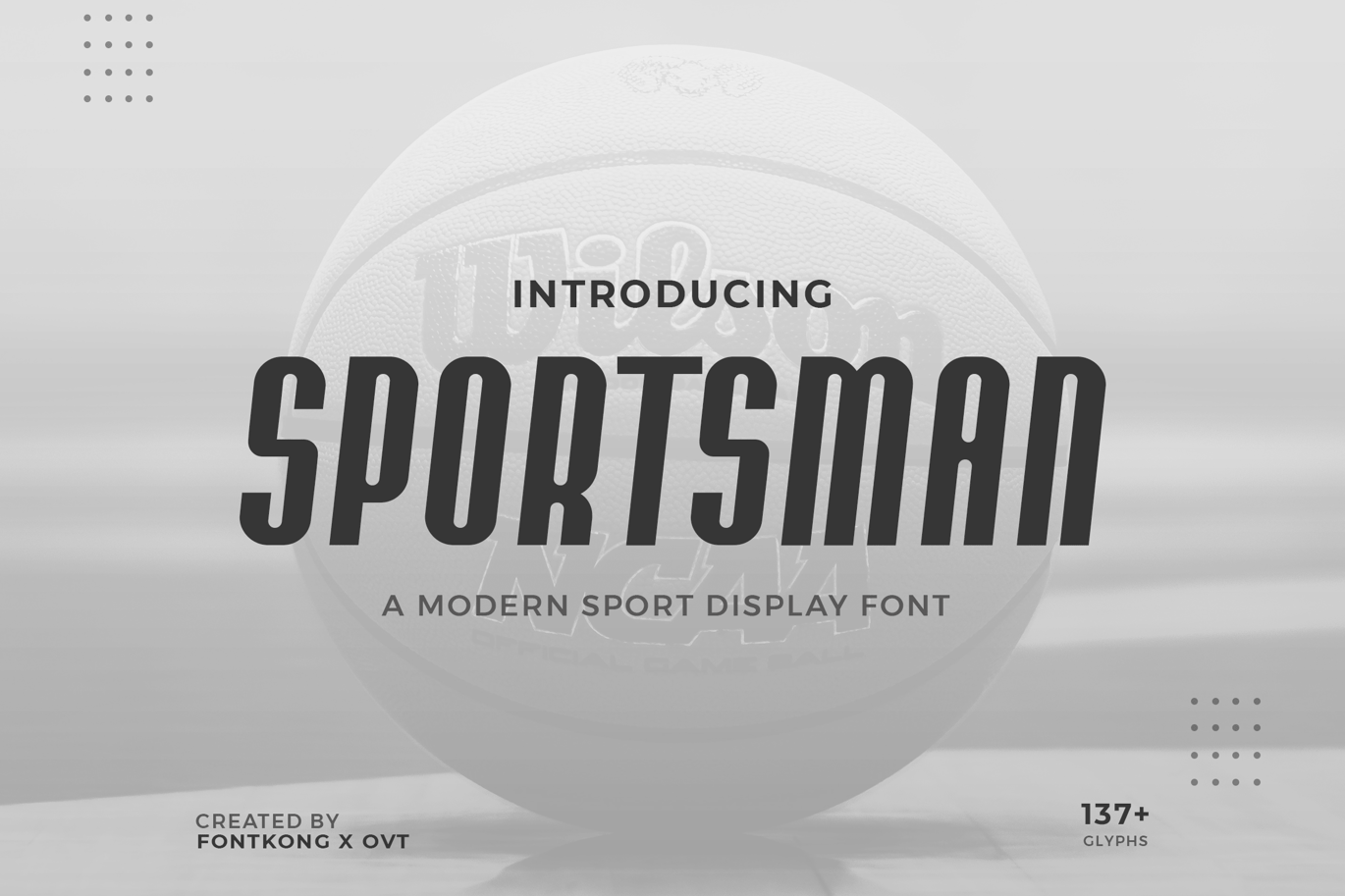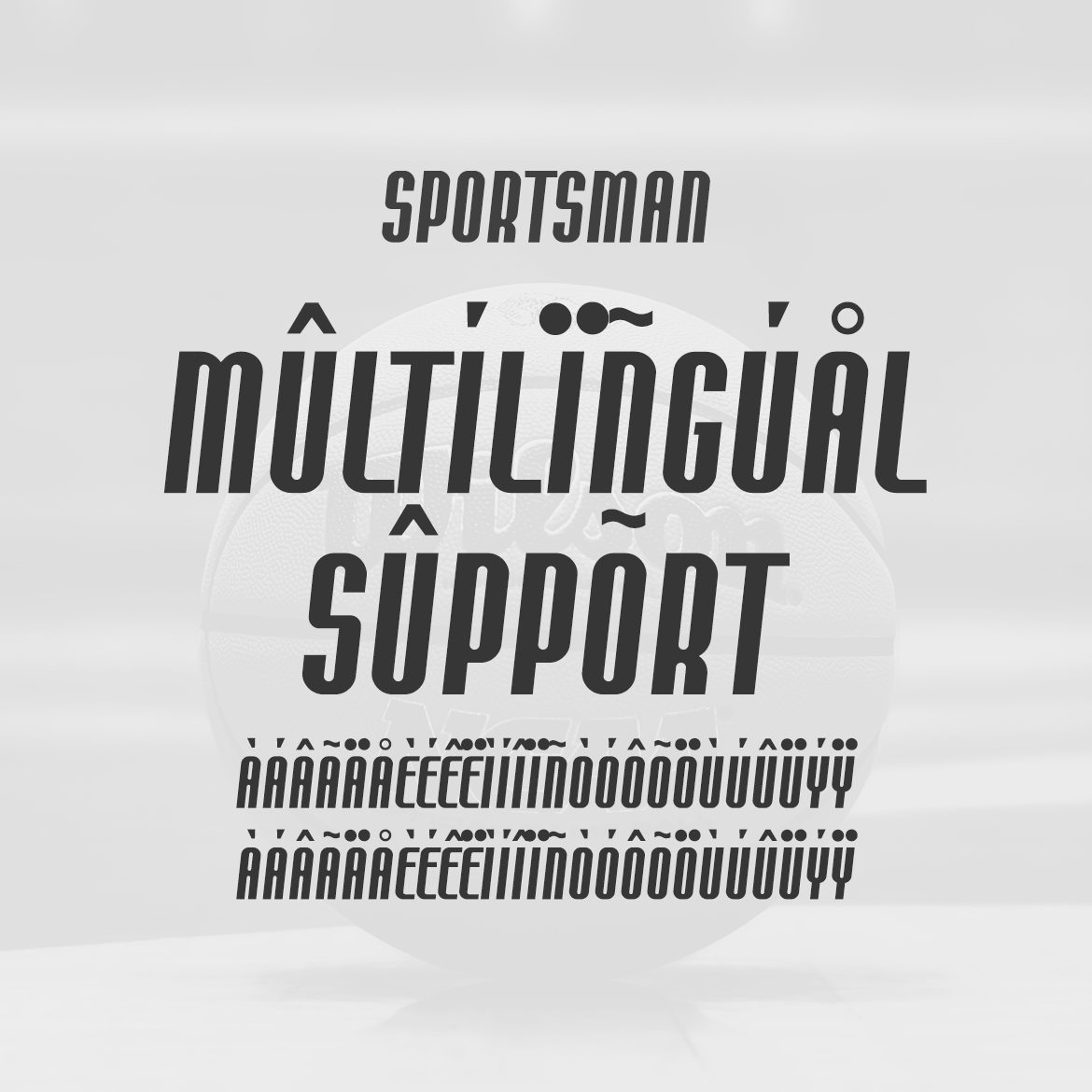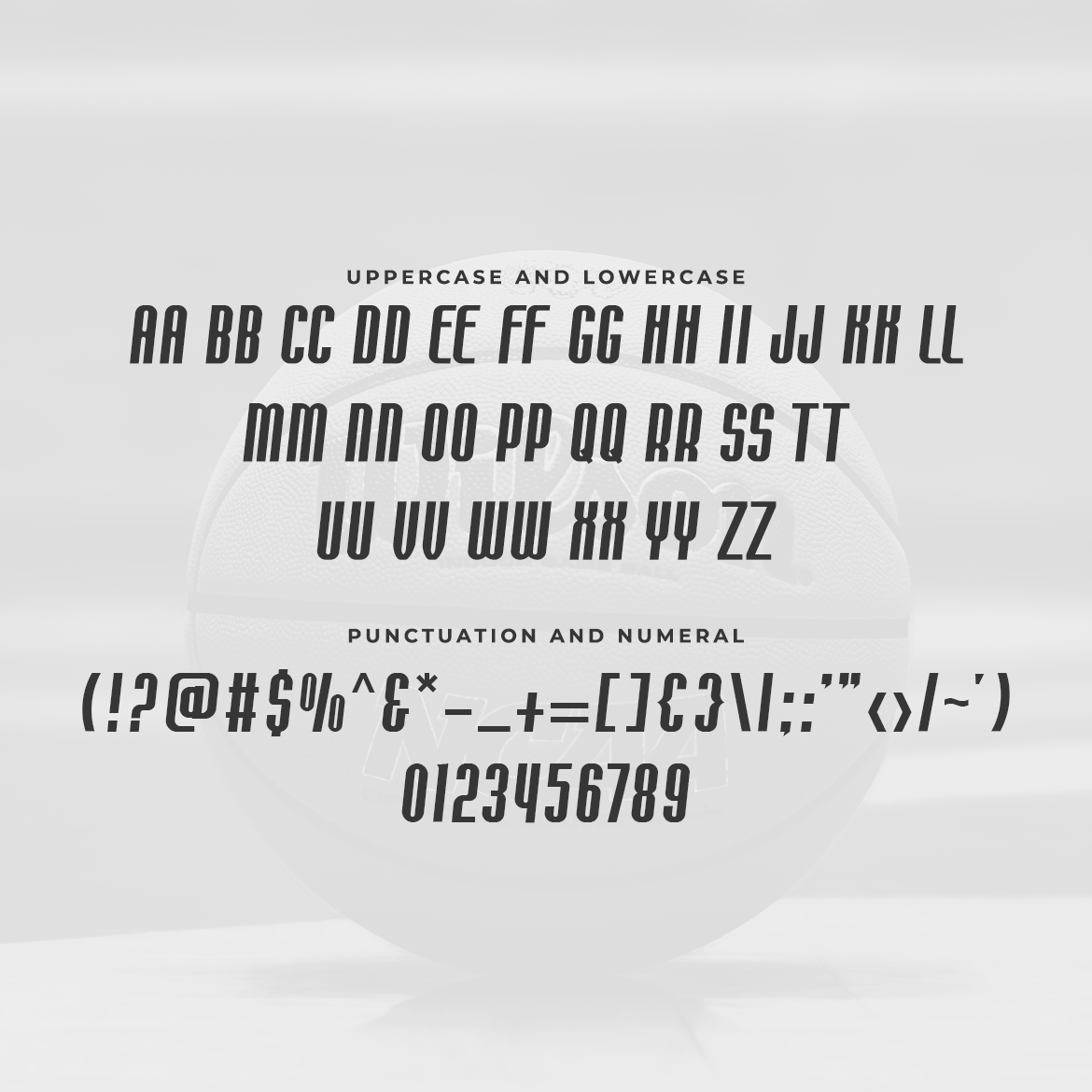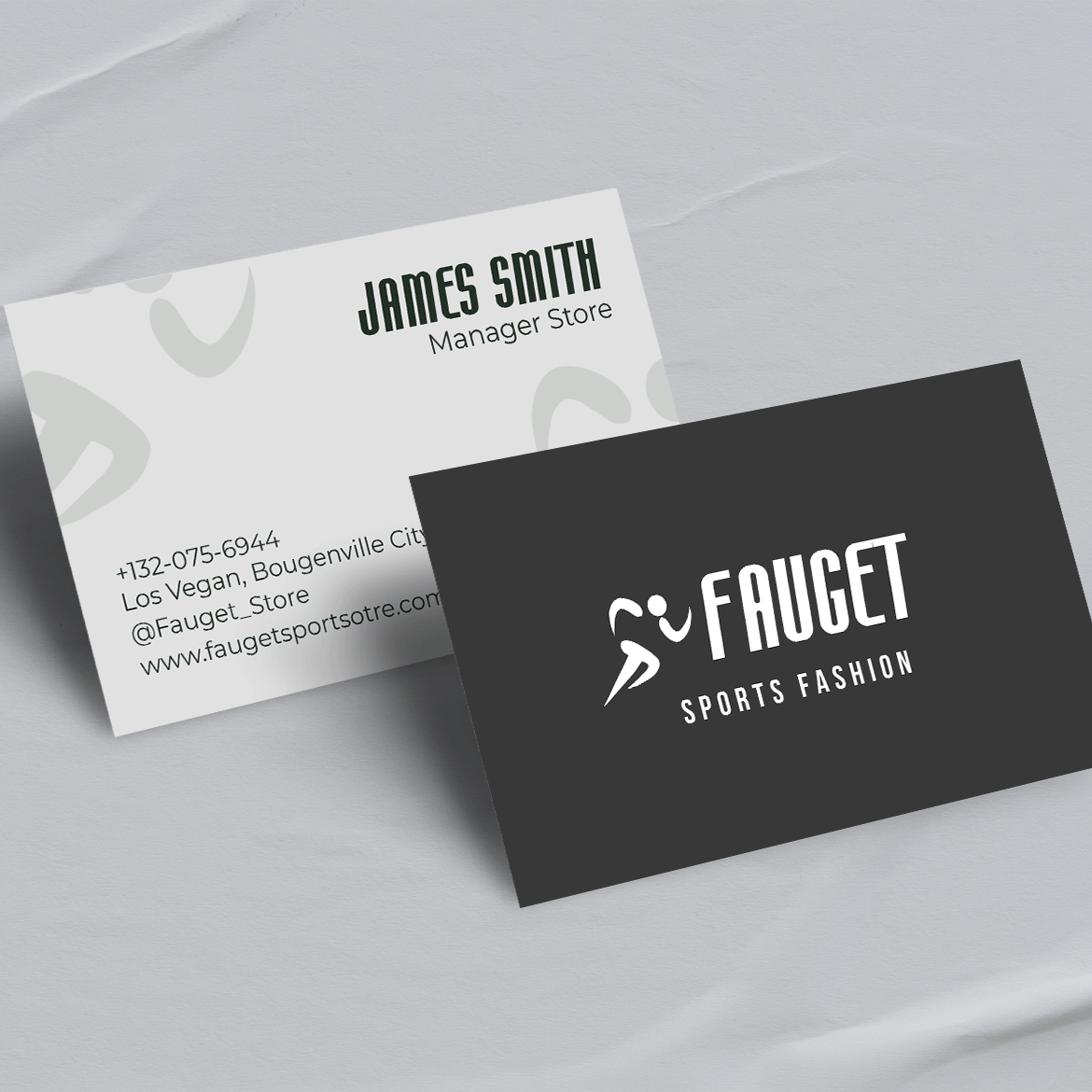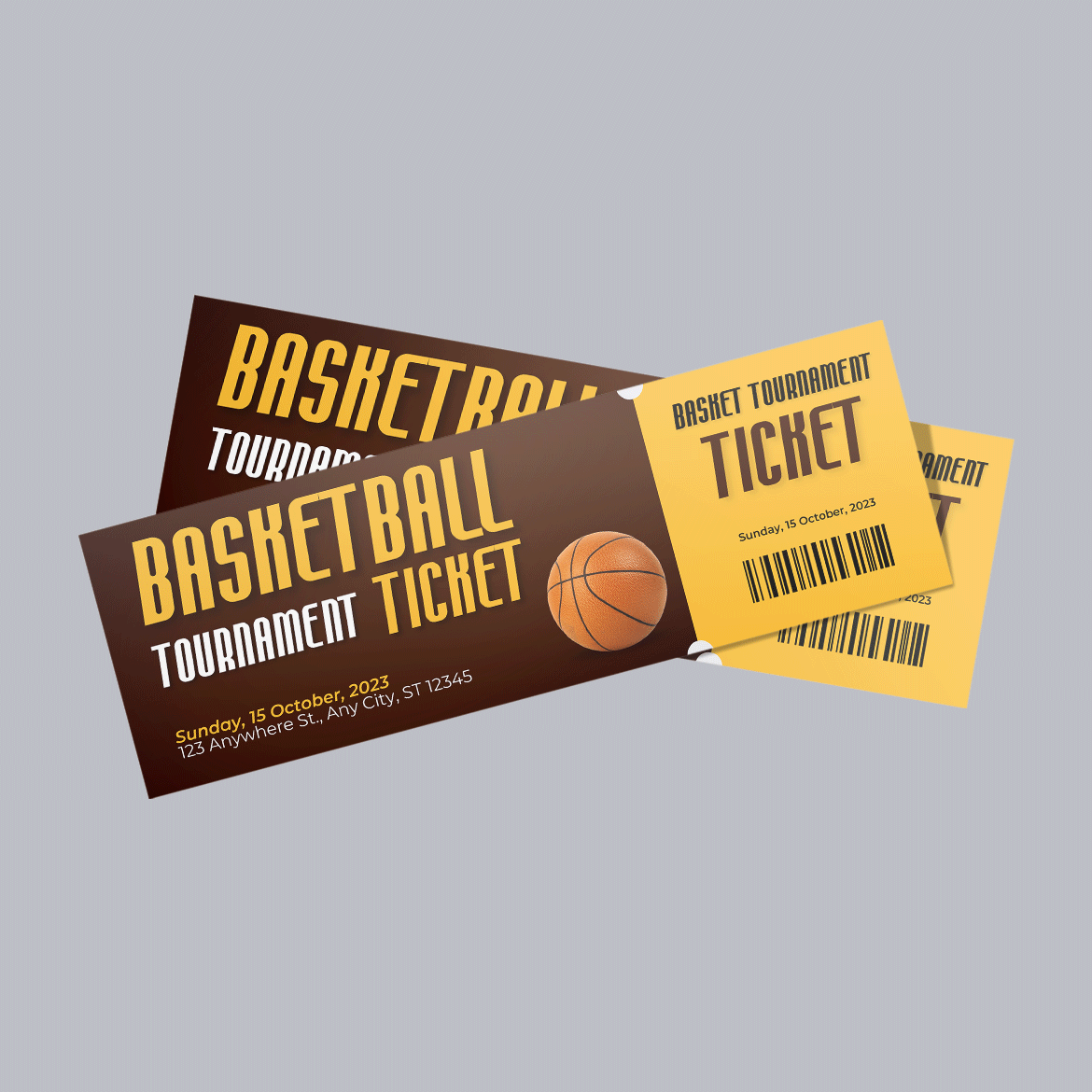
Sportsman – A Modern Sport Display Font
Sportsman is a bold and energetic modern sport display font designed to bring action and intensity to your design projects. With its strong lines and dynamic letterforms, Sportsman is perfect for athletic branding, sports event posters, team logos, and adrenaline-fueled apparel. This font captures the essence of competition and power, ensuring your work stands out with a commanding and impactful presence.
Crafted for performance, Sportsman features sharp and powerful characters that offer excellent readability and visual punch. Its modern sport design makes it ideal for display purposes, providing a striking and memorable impression. The font’s versatility allows it to adapt seamlessly to various design contexts, from digital banners to printed materials, making it a valuable asset for any designer aiming to create bold and high-energy visuals.
Elevate your design projects with Sportsman, a font that embodies the spirit of athleticism and competition. Its unique style and adaptability make it an essential addition to any designer’s toolkit for crafting dynamic and captivating designs. Enhance your work with Sportsman and experience the power of modern sport typography.